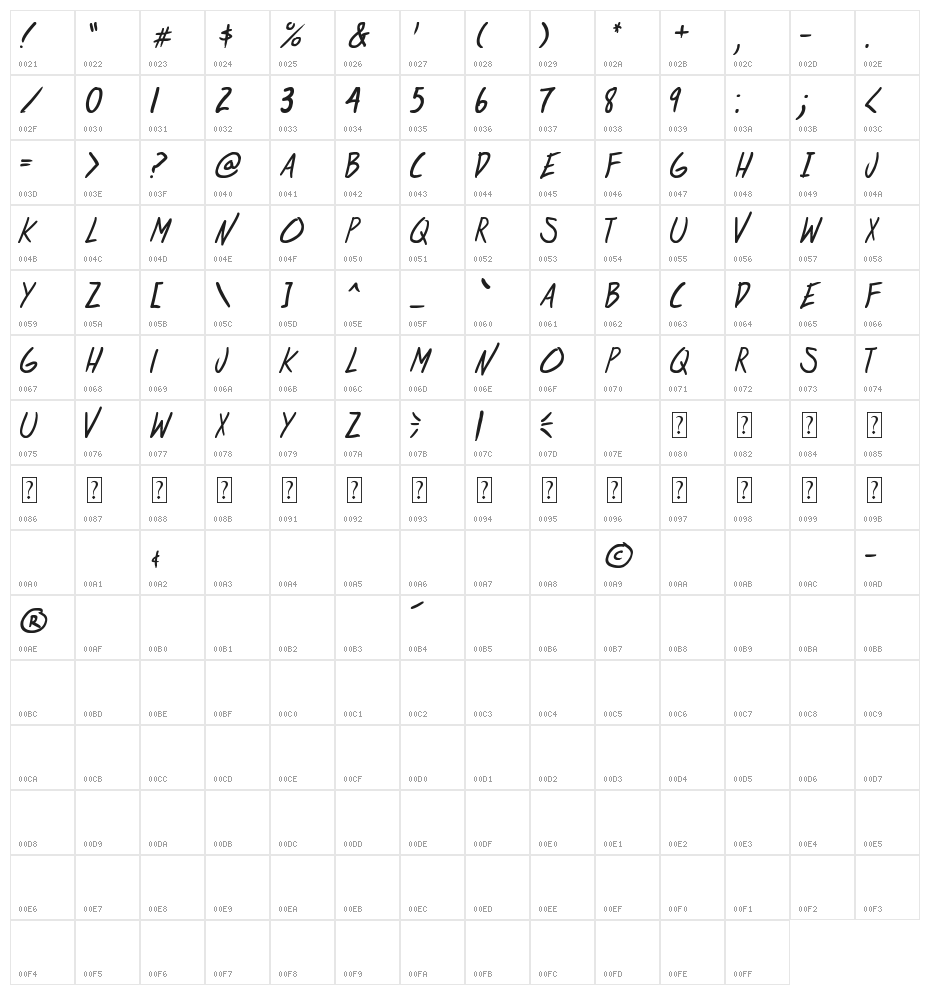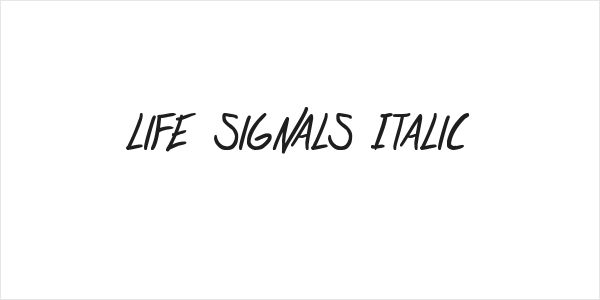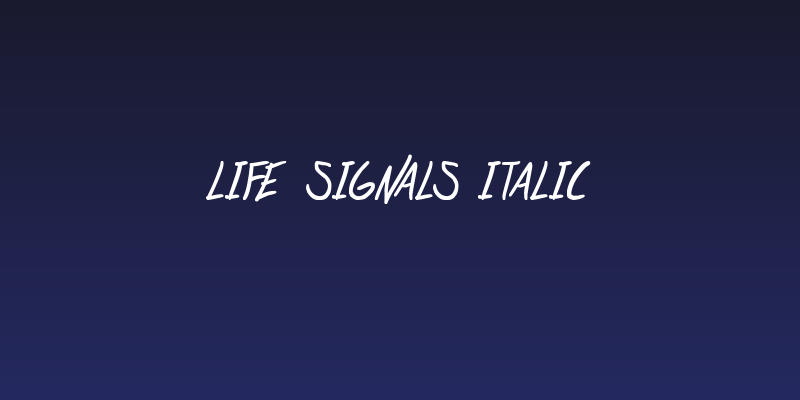
life signals Italic Font
life signals Italic Description
This font exhibits a dynamic and energetic handwritten style, characterized by its slanted, italicized form. The letters are fluid and slightly irregular, giving it a personal and informal touch. The strokes are consistent in thickness, providing a medium contrast that enhances readability while maintaining a casual appearance. The characters are slightly condensed, which contributes to its compact and efficient use of space. This font is versatile, suitable for projects that require a lively and approachable feel, such as personal branding, creative projects, or informal communications.
| Use Case | Logos, Headlines, Social media graphics |
| Proposed Projects | Ideal for personal branding, creative projects, informal communications, and social media graphics. |